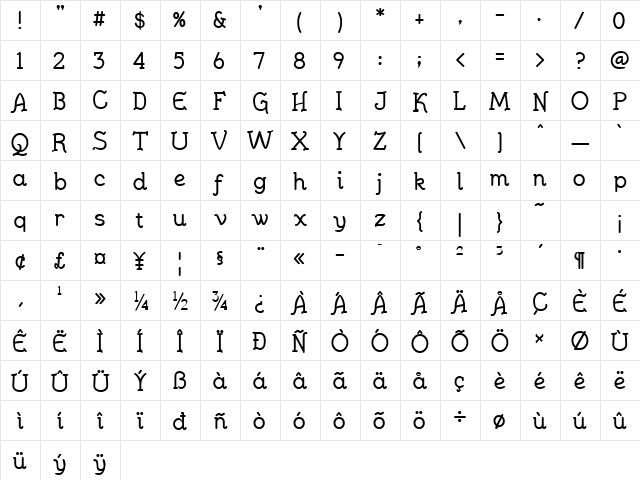
JennerikInfml Bold Free Font
JennerikInfml Bold
Design Context for JennerikInfml
JennerikInfml is a composed and adaptable typeface that performs quietly and consistently across a wide range of design contexts. Its bold stroke weight gives it real presence on the page.